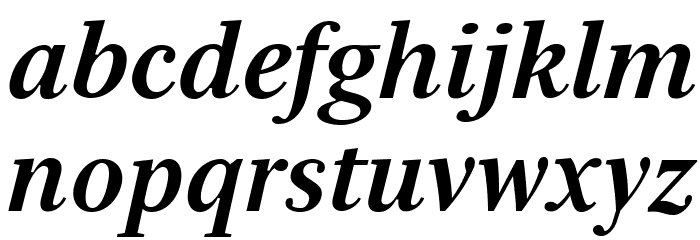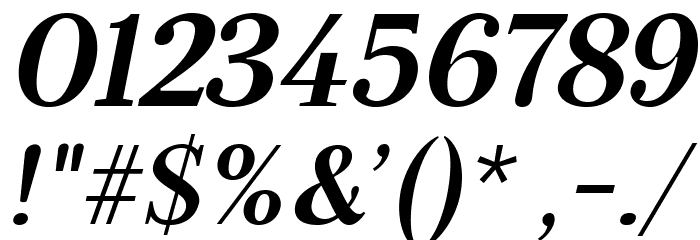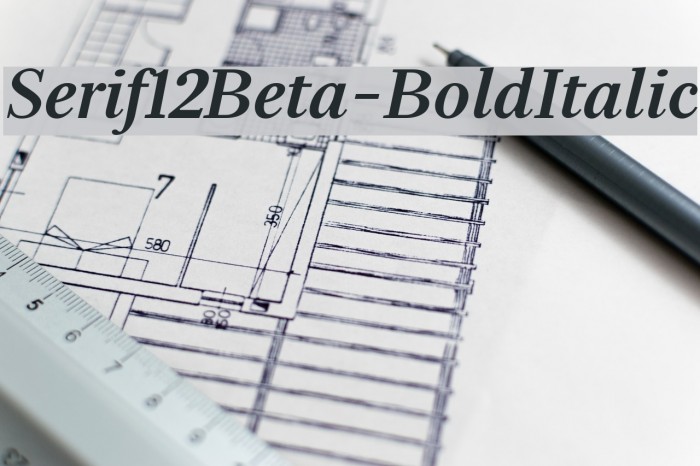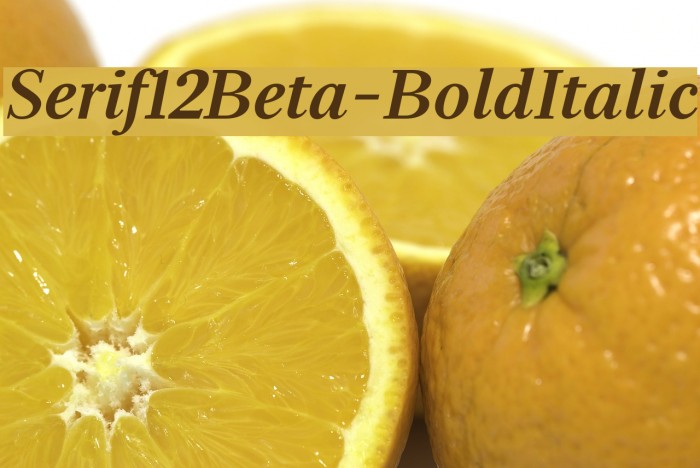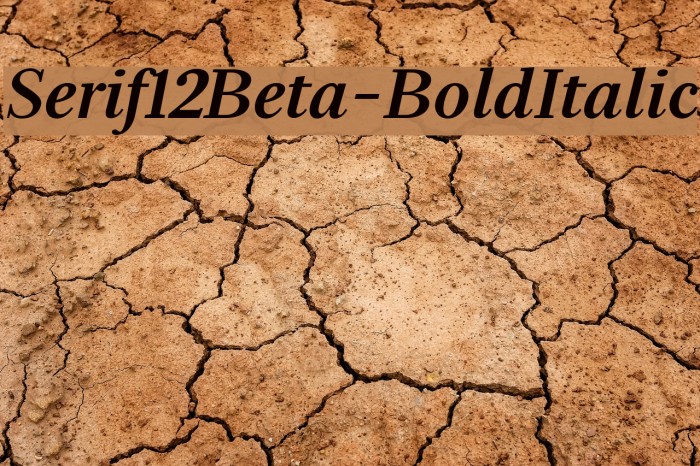
Serif12Beta-BoldItalic Font
This font exhibits a classic serif style with a bold and italicized appearance, giving it a strong yet elegant presence. The serifs are pronounced, adding a touch of sophistication and tradition. The italic slant enhances the dynamic feel, making it suitable for emphasis in text. The numerals are clear and consistent with the overall style, maintaining readability. Special characters are well-integrated, ensuring versatility across various applications. The font's design balances tradition with a modern twist, making it adaptable for both formal and contemporary uses.
A bold, italic serif font with a classic yet dynamic style.
- Proposed Projects: Ideal for book covers, formal invitations, branding materials, and editorial design.
- Category: Serif
- Overall Style: Classic
- Use Case: Headlines, Body text, Logos